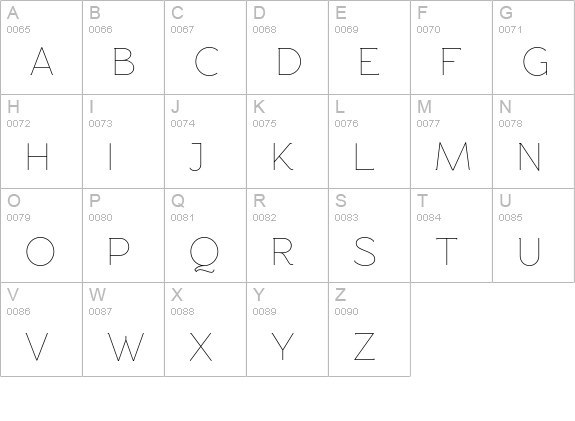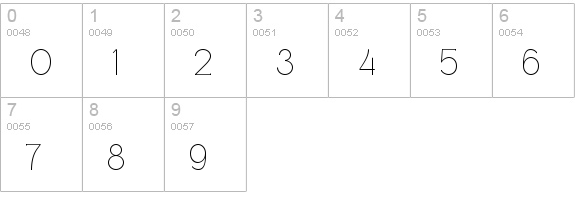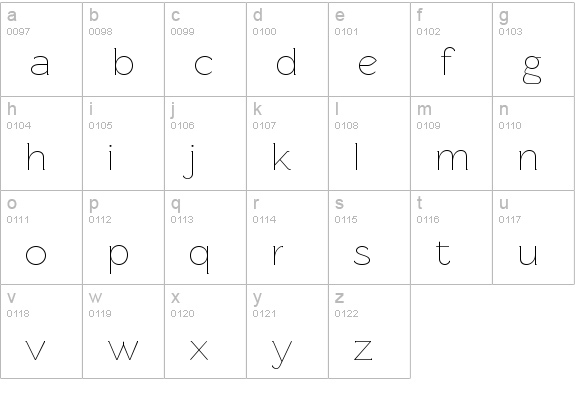
Rawengulk Light Font Details
Rawengulk Light is a refined, elegant variant in the Rawengulk typeface family \xE2\x80\x94 well suited to elegant body text, refined sub-headings, and luxury branding.
Rawengulk Light is a stunning sans-serif font that combines modern elegance with a touch of simplicity. With its clean lines and gentle curves, this font exudes a sense of refinement and sophistication. It is the perfect choice for projects that require a contemporary yet approachable aesthetic. Designed with versatility in mind, Rawengulk Light is suitable for a wide range of applications. Whether you are designing a logo, crafting a website, or creating eye-catching marketing materials, this font will effortlessly elevate your work to new heights. One of the best things about Rawengulk Light is that it is available for free. That's right! This incredible font can be downloaded at no cost from FontsMarket.com. This means that you can effortlessly enhance your design projects without breaking the bank. Rawengulk Light features a comprehensive set of characters, including uppercase and lowercase letters, numbers, punctuation marks, and special symbols. This extensive character set ensures that you have everything you need to bring your creative vision to life. The light weight of Rawengulk Light adds a delicate touch to your designs, making it ideal for projects that require a subtle and refined typographic presence. Whether you are designing for print or digital media, this font will effortlessly enhance the legibility and clarity of your text. In addition to its exquisite design, Rawengulk Light also boasts excellent readability. Its well-balanced proportions and carefully crafted letterforms ensure that your text will be effortlessly readable across various sizes and mediums. So why wait? Download Rawengulk Light today and unlock a world of creative possibilities. With its versatile design, exceptional readability, and the fact that it is available for free at FontsMarket.com, this font is a must-have for any designer or creative professional.